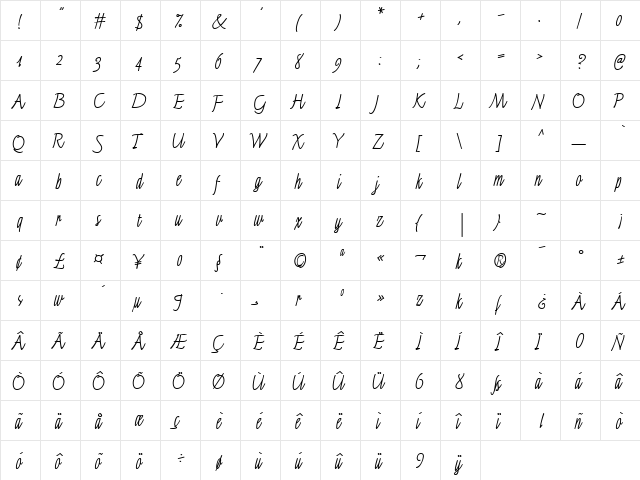
Saphire Light Script Regular Font Preview
Design Context for Saphire Light Script Typeface
Saphire Light Script brings a calligraphic fluidity to the page — its connecting strokes and expressive curves give it an unmistakably human quality. Its slender proportions lend an understated elegance to any composition.
Font Pairing: Combine Saphire Light Script with a simple geometric sans for maximum contrast — the tension between flowing curves and clean structure is a classic typographic pairing.
Pro Tip: Pair Saphire Light Script with a clean sans-serif for supporting text. The contrast between fluid script and geometric structure creates an elegant typographic hierarchy.